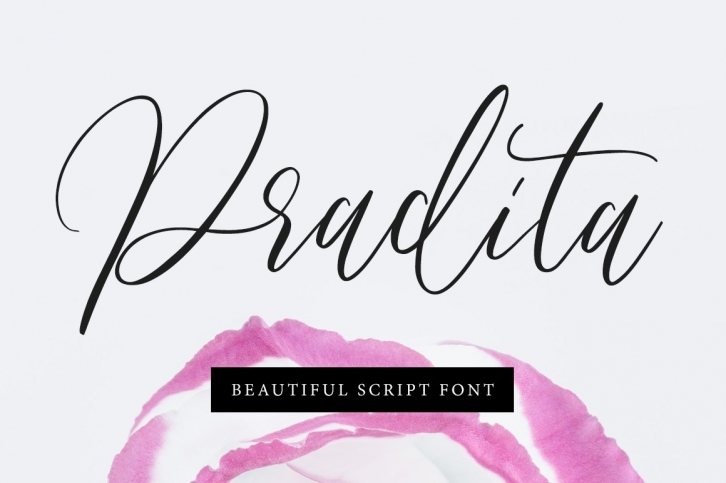
Pradita Script is a great font that was designed by Maulana Creative. Imagine the amount of combinations you can create using this font! The archive is 9.97 MB and it was released on May 2, 2019. Pradita Script looks beautiful on wedding invitations, greeting cards, logos, posters, labels, t-shirt designs, logos, business cards and is perfect for use in ink or watercolor works, fashion, magazines, packaging and food menus, children's books and more!